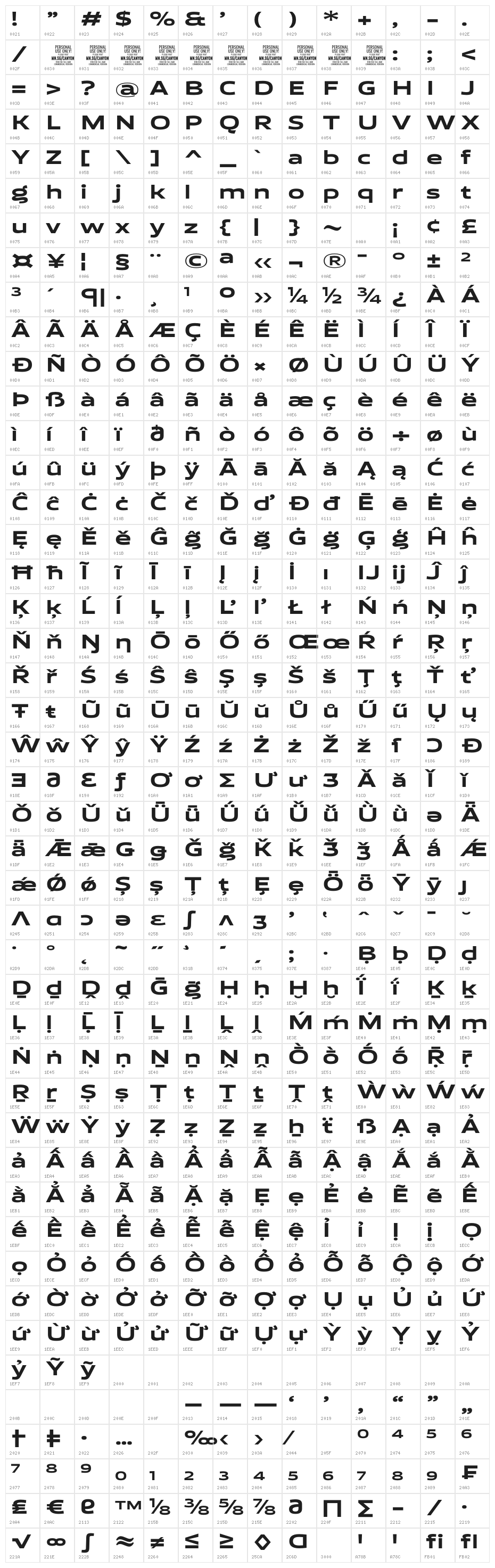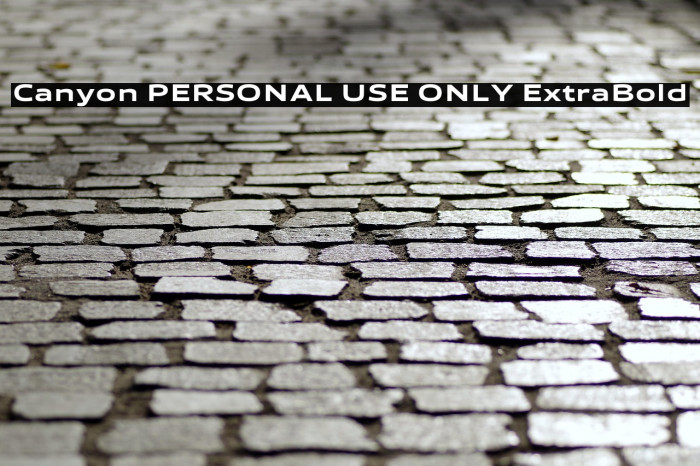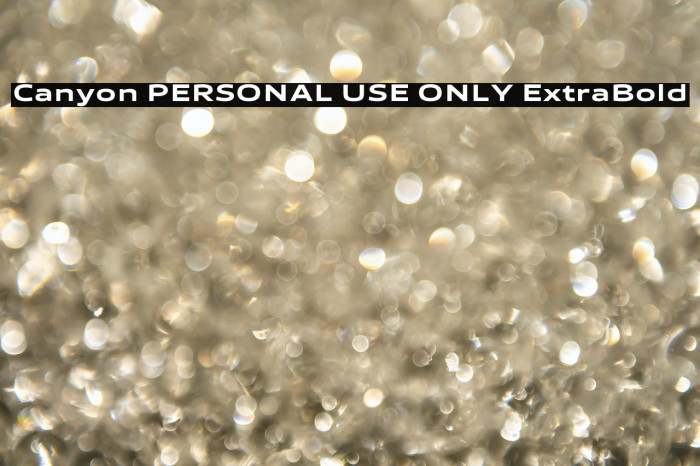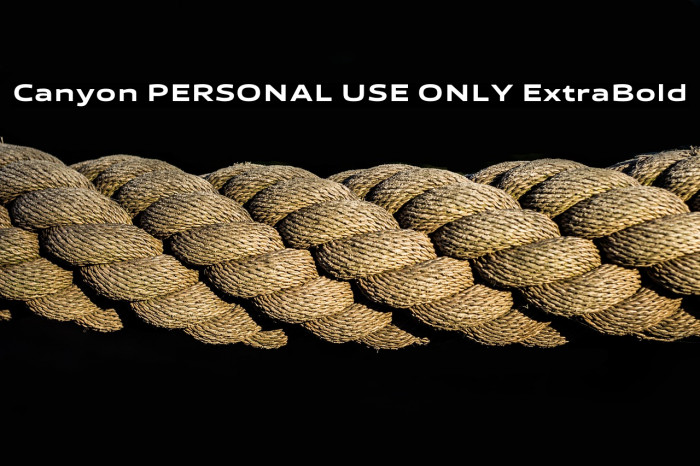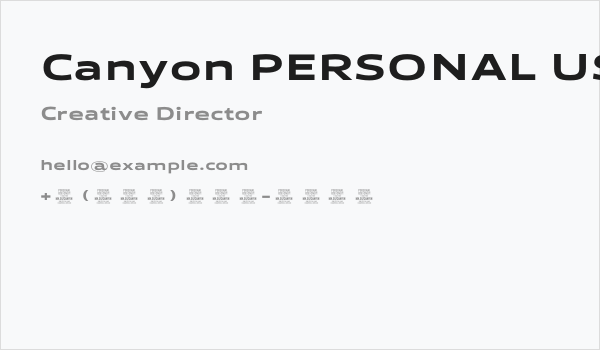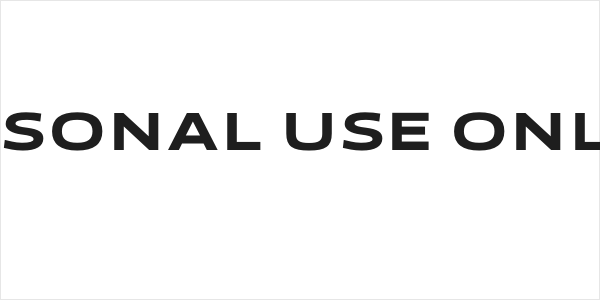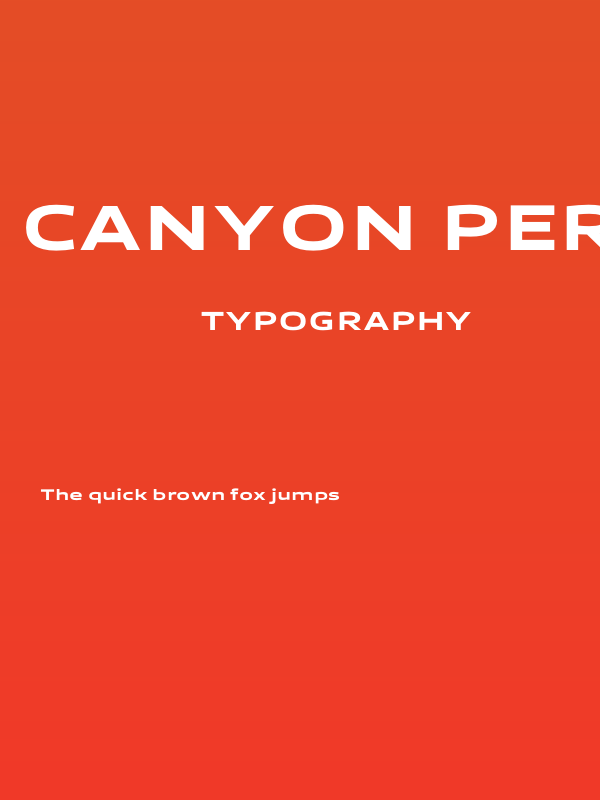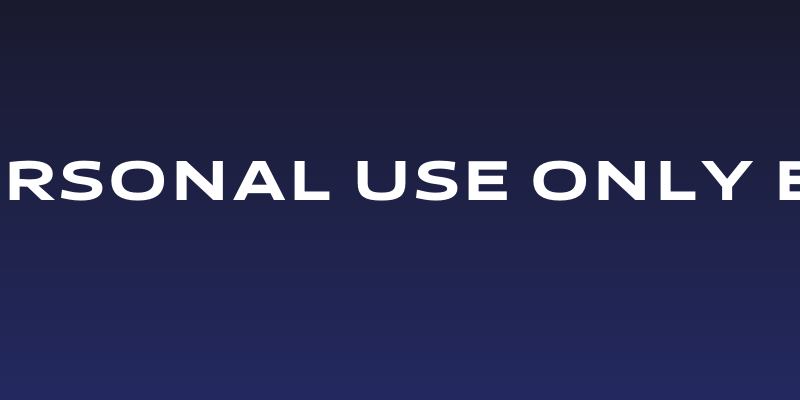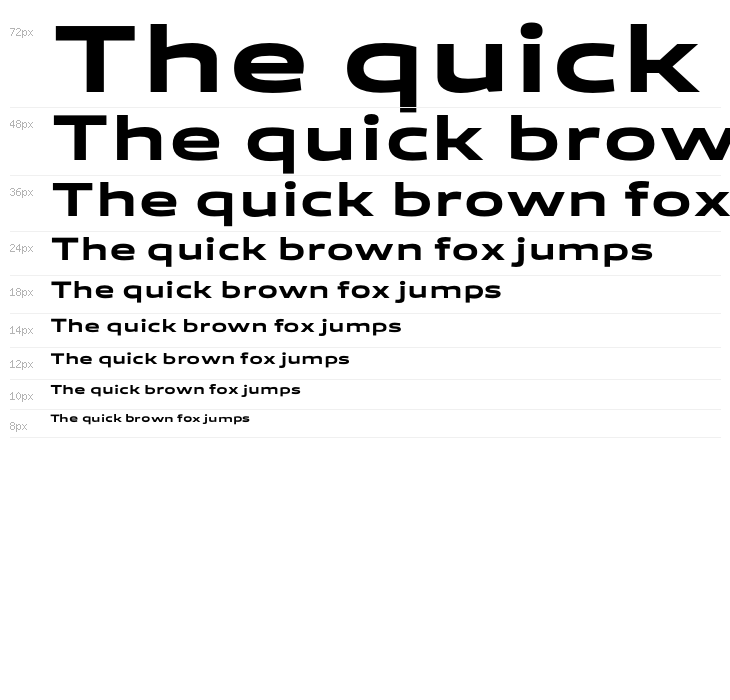
Canyon PERSONAL USE ONLY ExtraBold Font
Canyon PERSONAL USE ONLY ExtraBold Description
This font features a bold and modern design with clean, geometric lines. The uppercase letters are strong and assertive, while the lowercase letters maintain a consistent style with slightly rounded edges that add a touch of softness. The numerals are clear and easy to read, making them suitable for various applications. Special characters are well-defined, ensuring versatility in design projects. The overall appearance is sleek and contemporary, making it ideal for use in branding, advertising, and digital media.
| Proposed Projects | Ideal for branding, advertising, digital media, and headlines. |